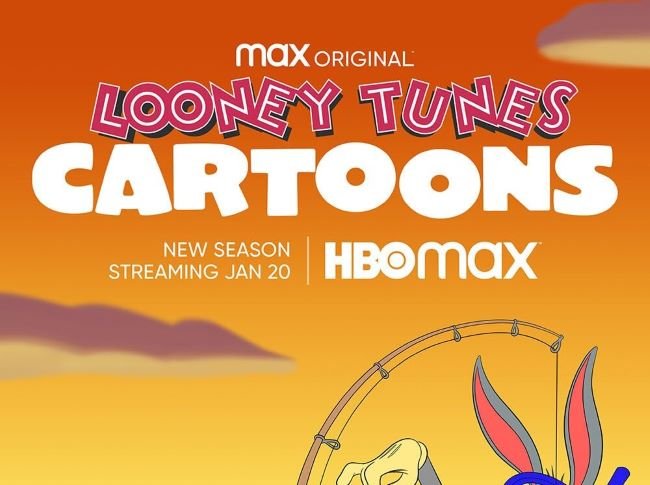
Looney Tunes Font
Looney Tunes Font is a bold retro cartoon font with vibrant curves and exuberant energy that has represented Warner Bros.’ legendary animated franchise since the 1930s — the home of Bugs Bunny, Daffy Duck, Tweety, Sylvester, Porky Pig, and a cast of characters whose anarchic, slapstick comedy has entertained generations across theatrical shorts, television, and feature films. Two separate font files cover the distinct lettering used for “LOONEY TUNES” and “CARTOONS” respectively, each capturing a different facet of the franchise’s classic title card identity.